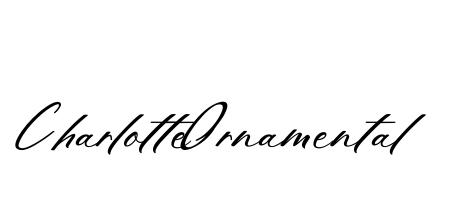
CharlotteOrnamental
CharlotteOrnamental: A flourish of elegance, this script whispers tales of bygone eras. Its flowing curves and graceful ligatures dance across the page, creating a sense of refined whimsy. Perfect for invitations, logos, or anywhere requiring a touch of old-world charm and sophisticated beauty. A timeless classic, effortlessly stylish.